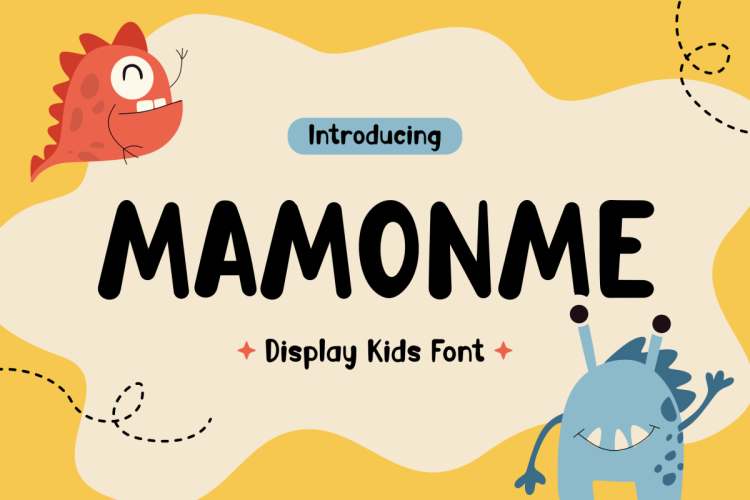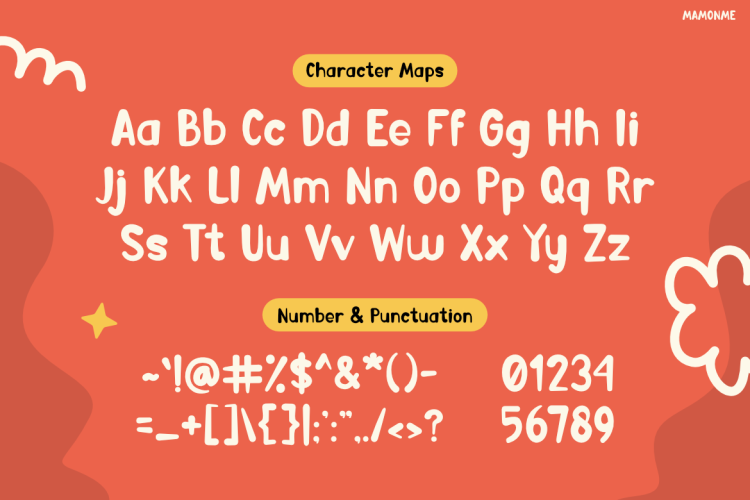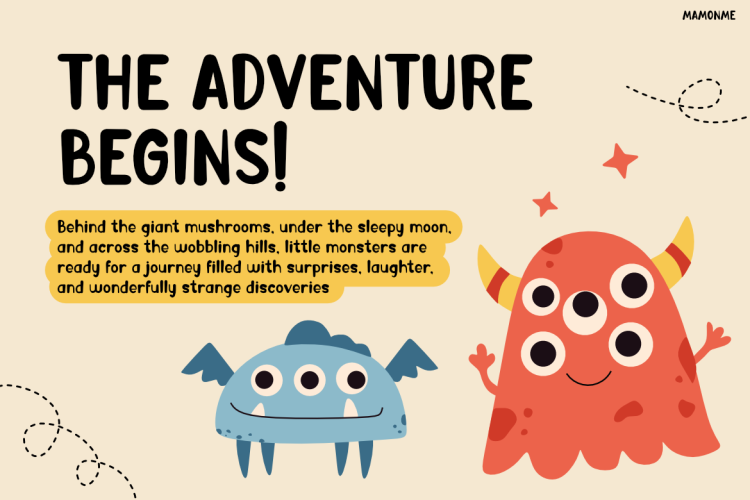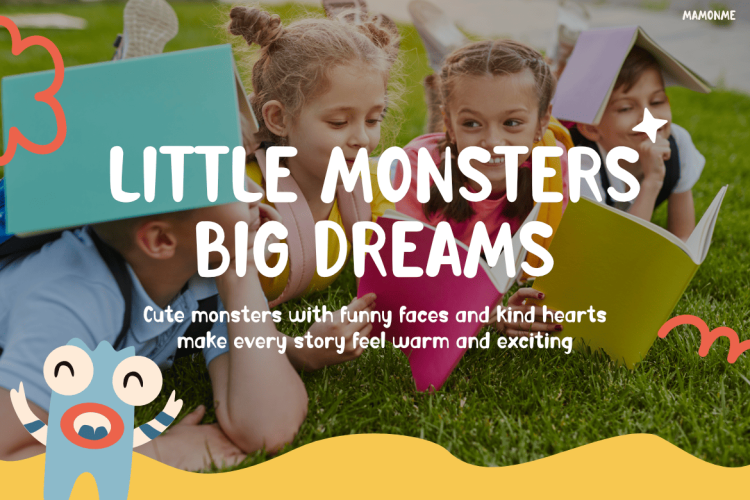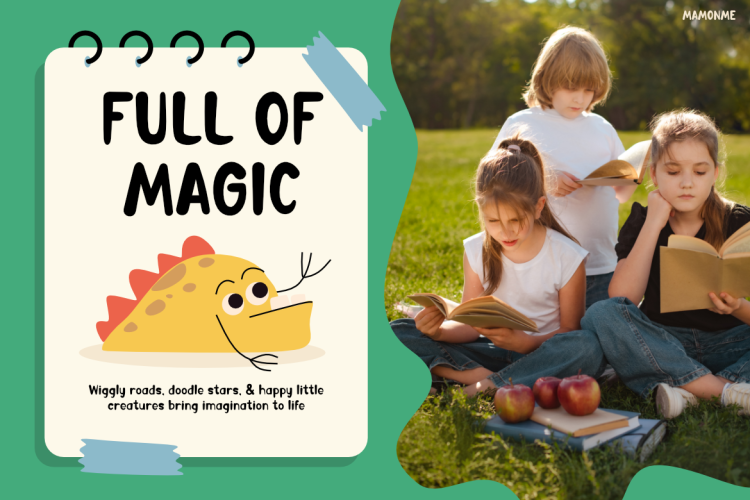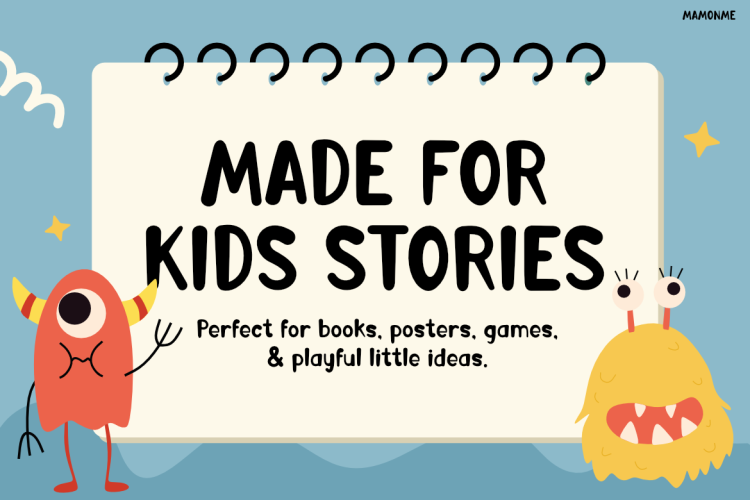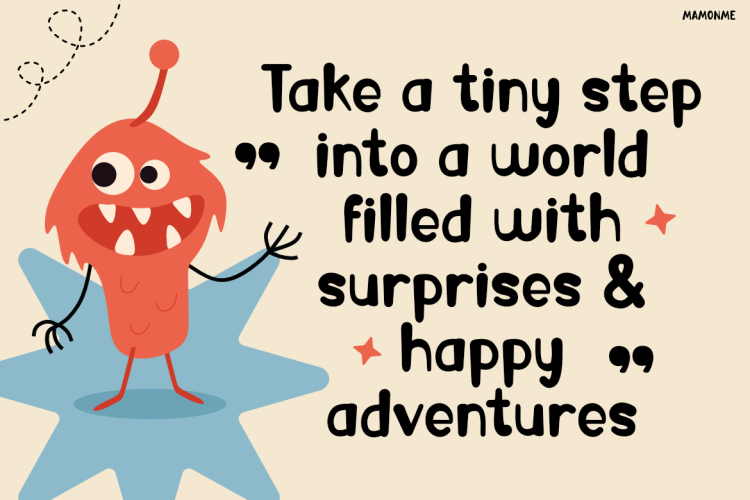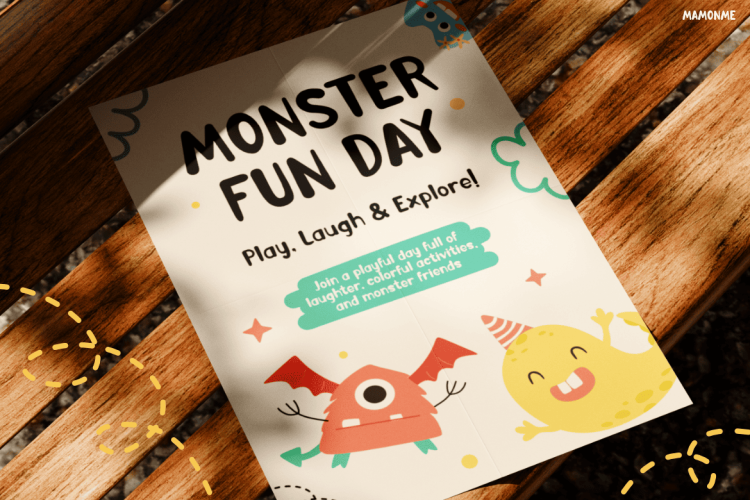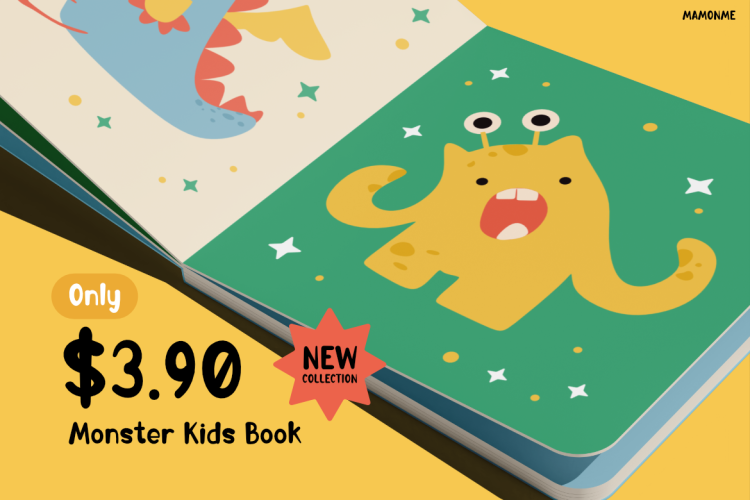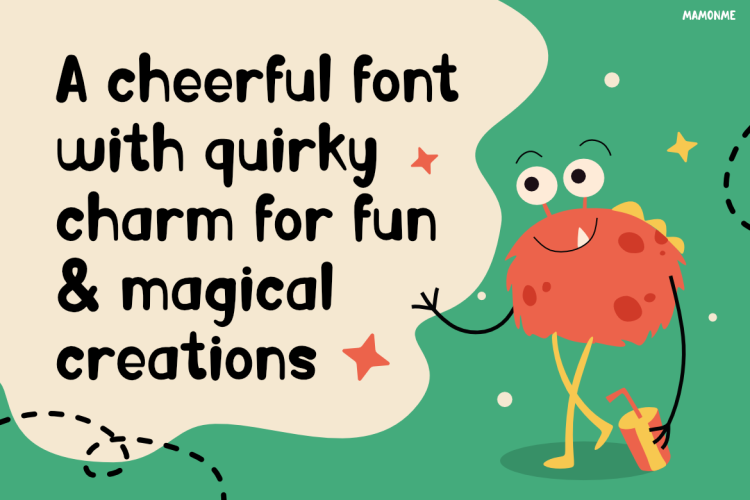
Kids Font Mamonme – Fun, Playful & Full of Imagination
Kids Font Mamonme is a cheerful display font designed to spark creativity and bring playful adventures to life. Featuring quirky letterforms, rounded shapes, and a hand-drawn personality, this font instantly creates a fun and friendly atmosphere. Moreover, its whimsical style captures the excitement of children’s stories, while its bold structure keeps every word clear and readable. As a result, designs feel more engaging, energetic, and memorable. Furthermore, the unique character of each letter adds a sense of imagination that makes projects stand out. Whether you’re creating storybooks, educational materials, or playful branding, Kids Font Mamonme helps transform ideas into magical visual experiences.
Kids Font Mamonme Designed for Creative Kids Projects
Mamonme combines playful charm with everyday versatility. Not only does it add personality to your designs, but it also creates a warm and welcoming feel. In addition, its friendly appearance works beautifully across both print and digital media. Consequently, designers can build eye-catching projects that connect with young audiences. Meanwhile, its fun monster-inspired aesthetic encourages creativity and storytelling. Therefore, it is an excellent choice for colorful and imaginative designs.
Who Is It For?
Perfect for:
- Children’s book authors
- Teachers and educators
- Kids product brands
- Toy packaging designers
- Party and event planners
- Content creators
- Illustrators and crafters
- Graphic designers
Additionally, it works perfectly for storybooks, worksheets, posters, classroom decorations, invitations, packaging, merchandise, and social media graphics.
Turn Every Design into an Adventure
Kids Font Mamonme is more than a fontโit is a playful companion for creative storytelling. Furthermore, its charming and quirky style helps capture attention instantly. Consequently, your projects become more fun, memorable, and engaging. So, if you’re looking for a font packed with imagination, personality, and kid-friendly appeal, Mamonme is ready to become the star of your next creation.